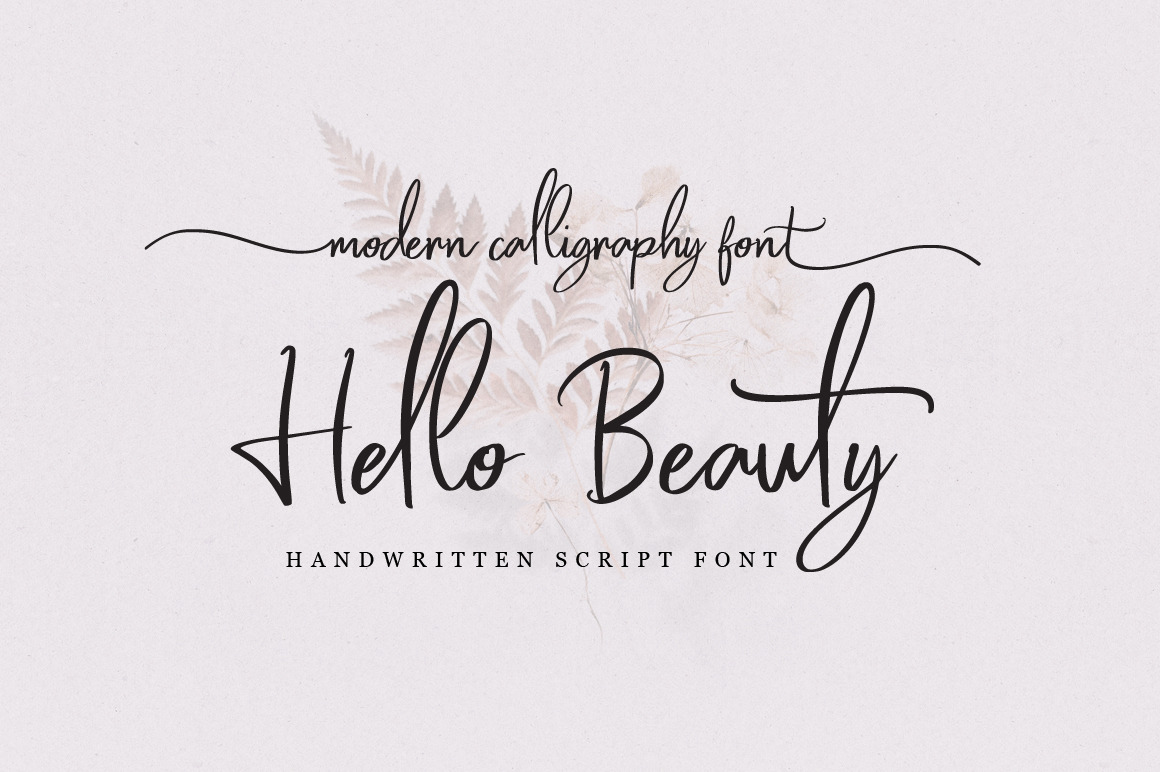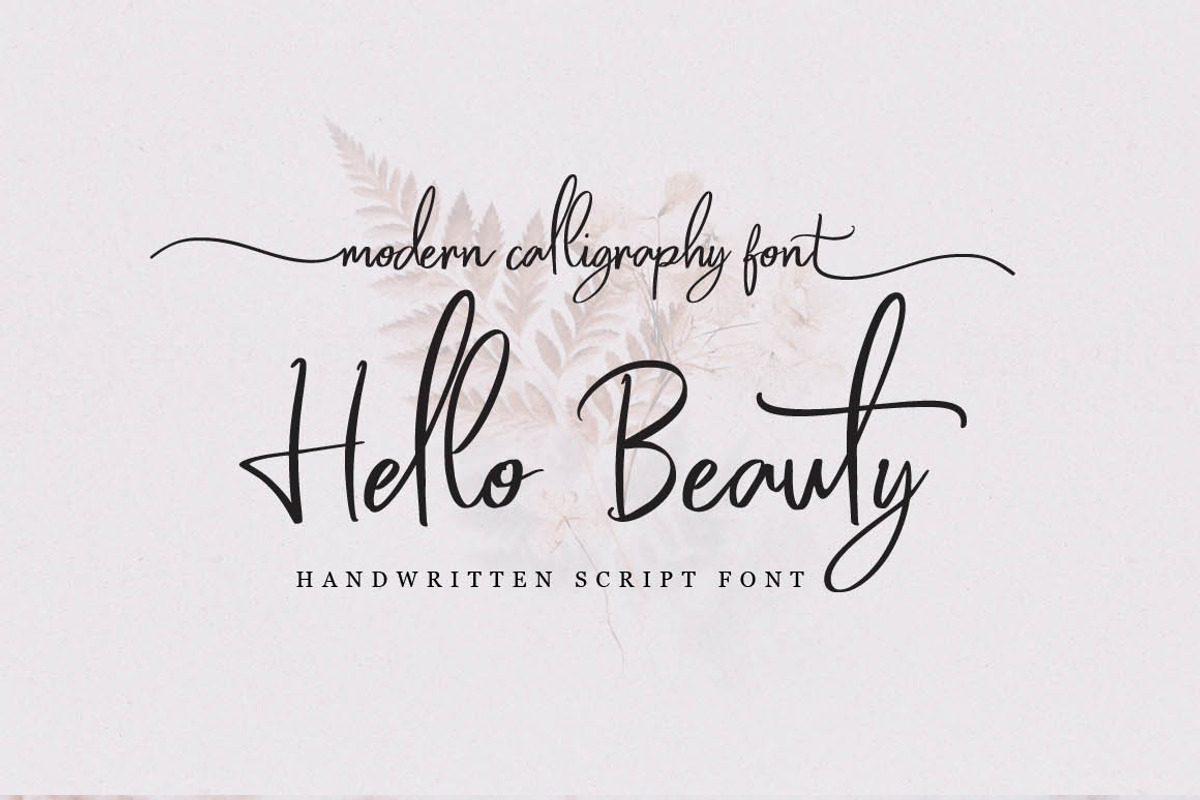
Hello Beauty - Handwritten Font
Hello Beauty is Script Font with Handlettering Modern Calligraphy Style, with opentype feature include of the font. Suitable for design, element design, wedding, event, t-shirt, logo, badges, sticker, and awesome work, etc...
Unique style fonts